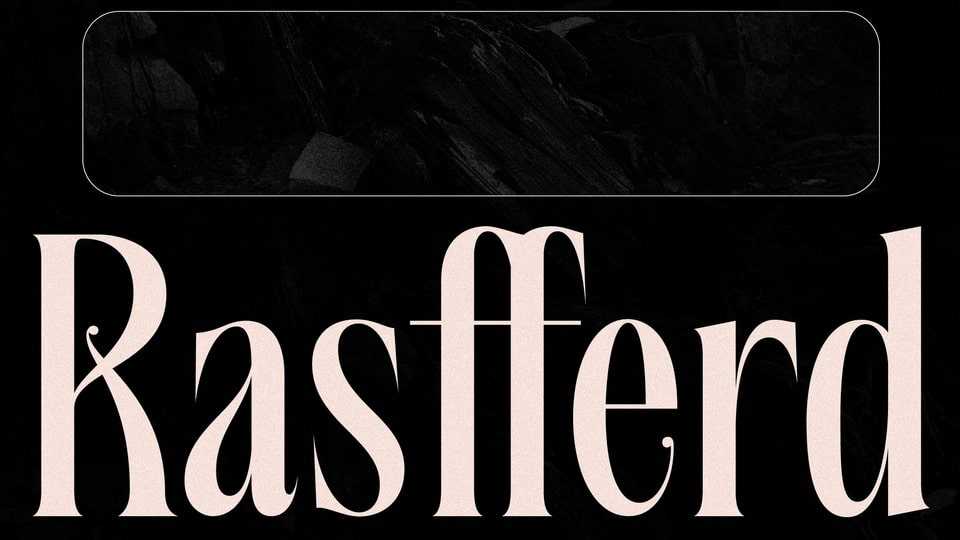
Download Rasfferd font, a beautiful serif typeface that has a broad appeal and can be used for any project. Rasfferd font will enhance your craft with little effort, making your product stand out from the competition.